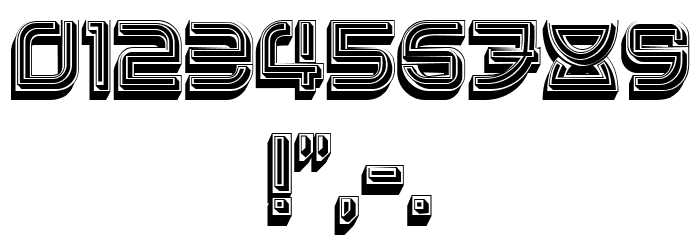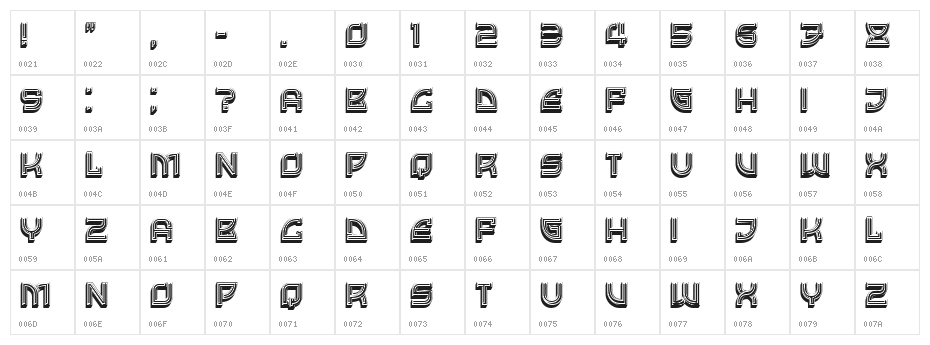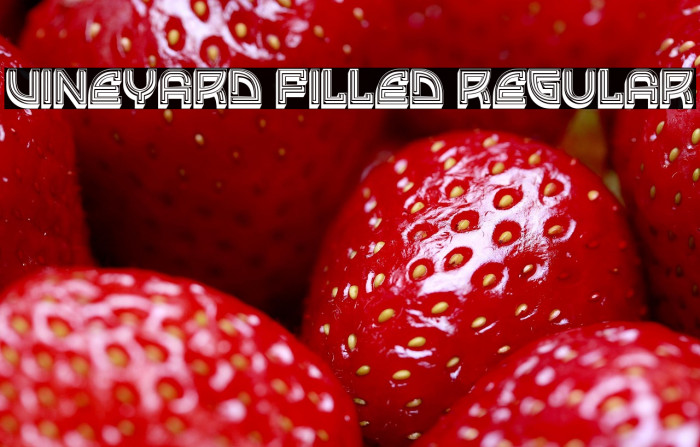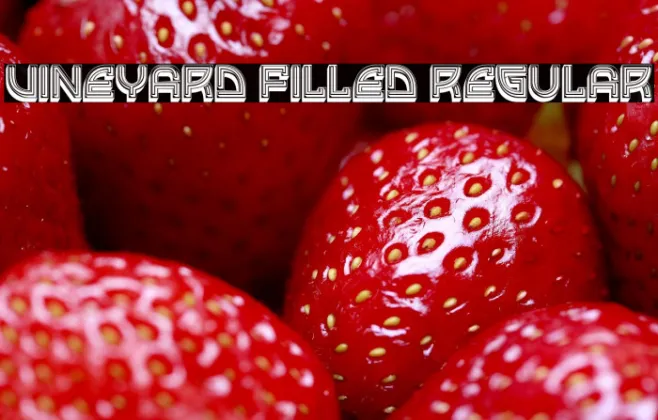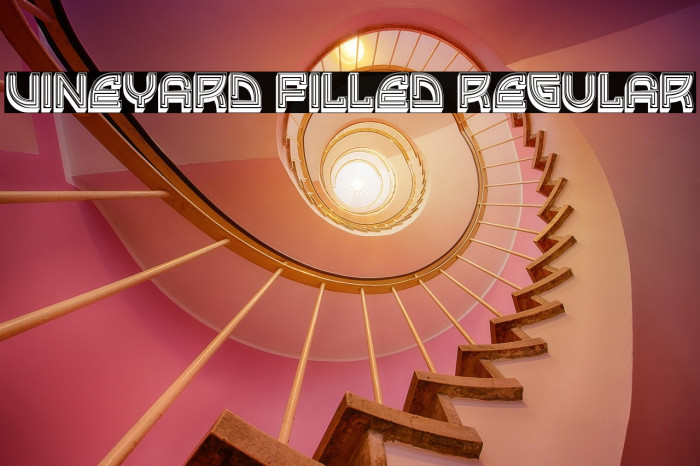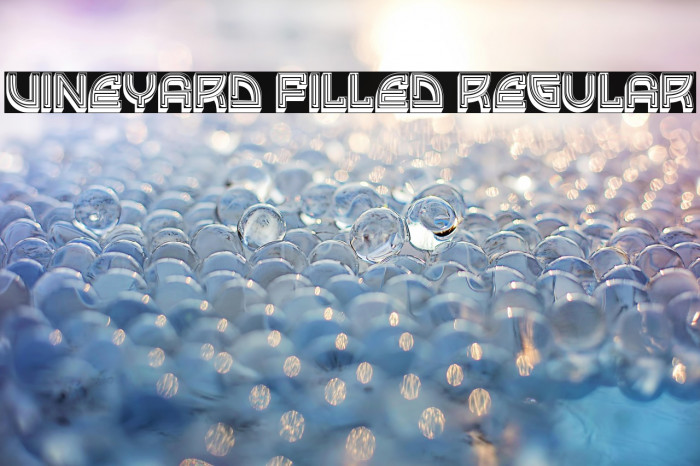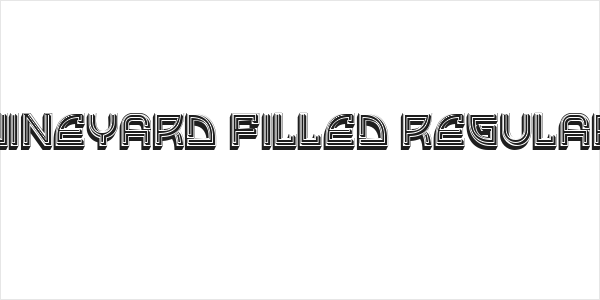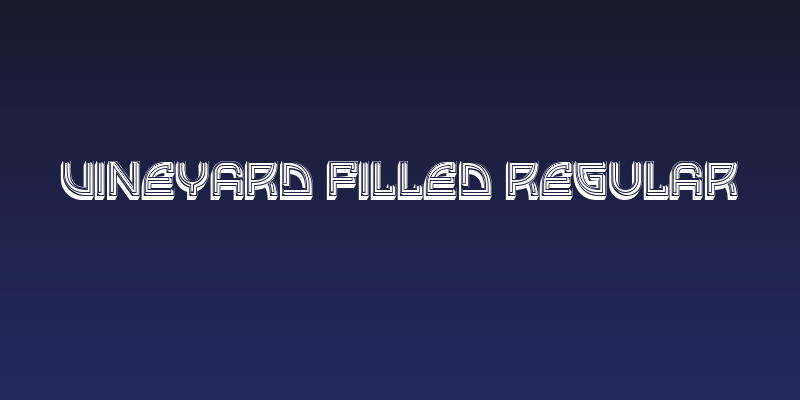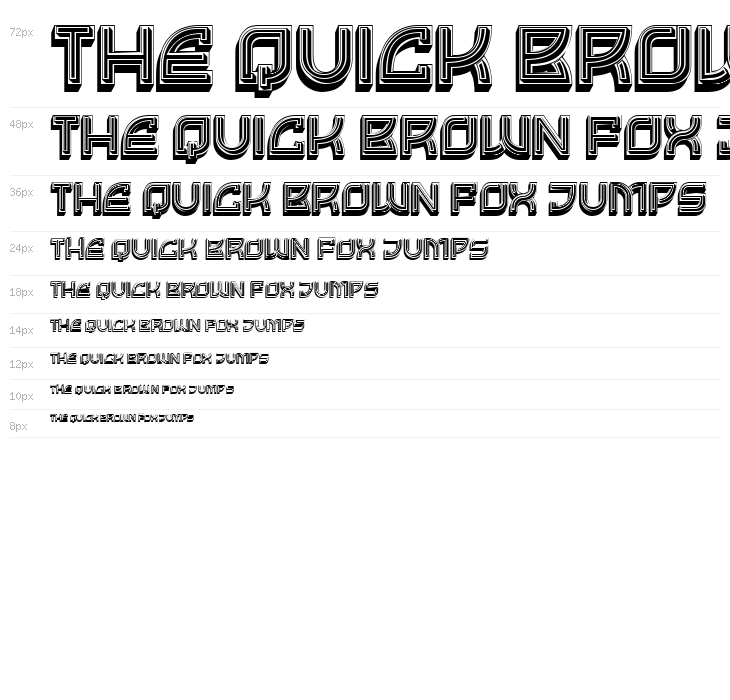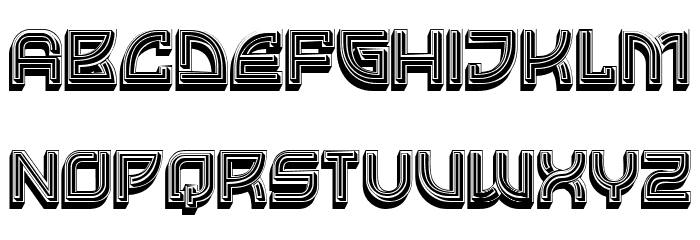
Vineyard Filled Regular Font
Vineyard Filled Regular Description
This font features a bold, decorative style with a three-dimensional effect created by layered outlines and shadows. Each character is designed with a geometric structure, incorporating sharp angles and clean lines that give it a futuristic and dynamic appearance. The uppercase and lowercase letters maintain a consistent design, enhancing readability while still offering a unique visual appeal. The numbers and special characters follow the same stylistic approach, ensuring uniformity across all glyphs. This font's intricate detailing and bold presence make it ideal for eye-catching designs.
| Proposed Projects | Ideal for posters, logos, video game graphics, and any project requiring a striking, modern aesthetic. |